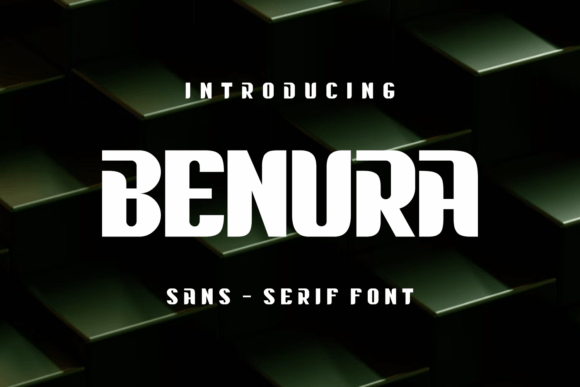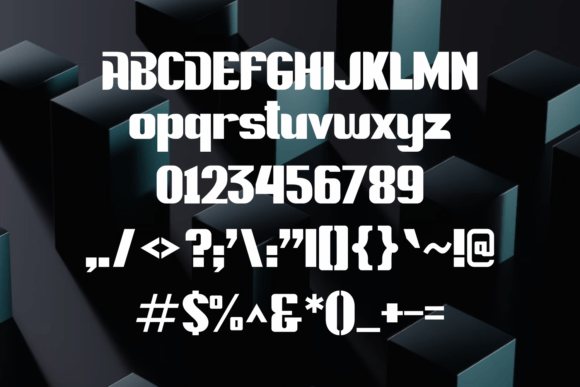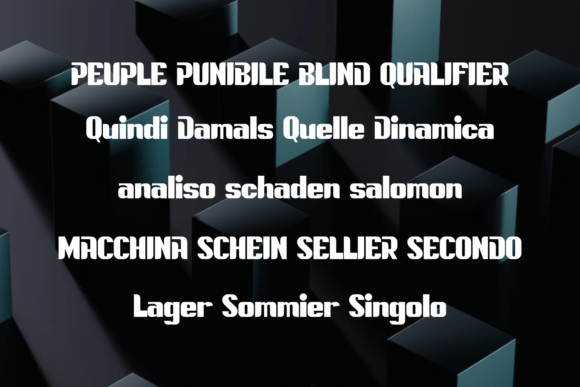
Introduction to Benura Font
Have you ever stared at a blank canvas, feeling like your creative project is missing that one special something? You know, that spark that makes it truly stand out from the crowd? For designers, finding the perfect font can be just that game-changing moment. It’s the difference between a good design and a great one.
That’s where the Benura Font comes in – a stylish and cool sans display font that’s sure to elevate your designs to the next level. Its bold and unique characters are perfect for creating original designs that make a statement. With the Benura Font, you’ll have access to a high-quality design resource that’s sure to impress.
Key Features of Benura Font
- Unique characteristics include its elegant and modern style, making it perfect for a wide range of creative projects.
Honest Review: Benura Font
- ✨ Beautifully crafted letterforms with a unique, modern aesthetic.
- ✨ High-quality design that’s perfect for logos, branding, and typography-based designs.
- ⚠️ The font only includes a limited character set, which may not be suitable for longer texts or complex layouts.
- ⚠️ Some of the characters may require additional manual formatting or editing to achieve the desired look.
Overall, I’m impressed with the Benura Font. While it may have some limitations, its unique design and high-quality craftsmanship make it a valuable addition to any designer’s toolkit. I’d definitely recommend it to anyone looking for a free, high-quality font for their creative projects.
Getting the Most Out of Benura Font
For best results, use Benura Font in high-quality designs with a transparent background. Experiment with different font styles and sizes to achieve a unique look.
Benura Font is suitable for various design projects, including logos, brochures, and social media graphics. Its versatility makes it an ideal choice for creative professionals and designers.